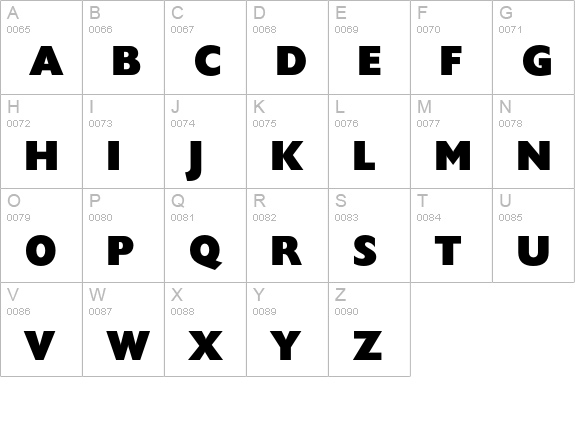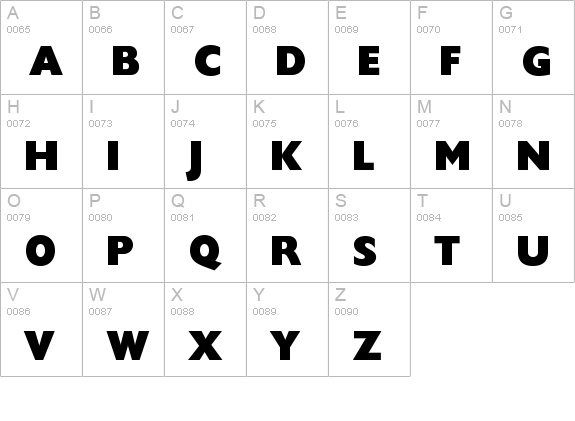
Chantilly-Heavy is a heavy, high-impact variant in the Chantilly typeface family \xE2\x80\x94 well suited to high-impact headlines, posters, and display advertising.
Chantilly-Heavy font is a bold and elegant typeface that exudes sophistication and professionalism. With its thick strokes and graceful curves, this font is perfect for making a bold statement in headlines, titles, and branding materials. Its timeless design adds a touch of classic beauty to any project. Not only does Chantilly-Heavy font offer exceptional legibility and visual impact, but it is also available for free download at FontsMarket.com. This means that you can easily access this premium font without any cost, making it a valuable addition to your font collection. Whether you're working on a print design, digital project, or branding campaign, Chantilly-Heavy font is sure to elevate your work with its distinctive style and versatility. Download it today and experience the beauty and power of this stunning typeface.